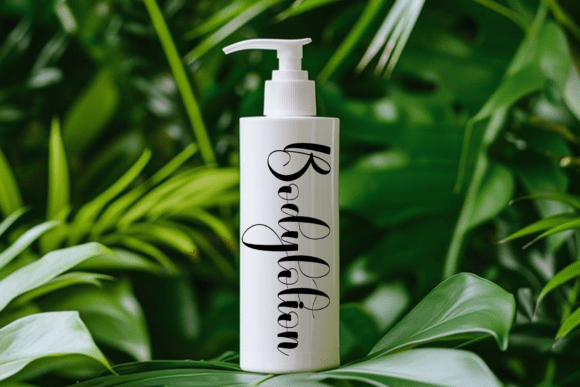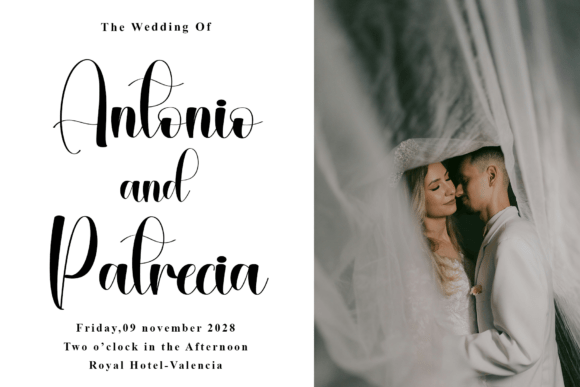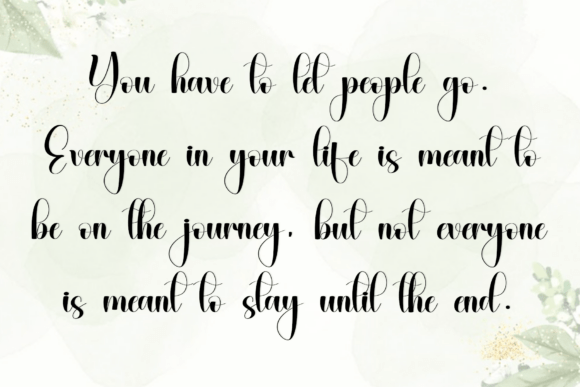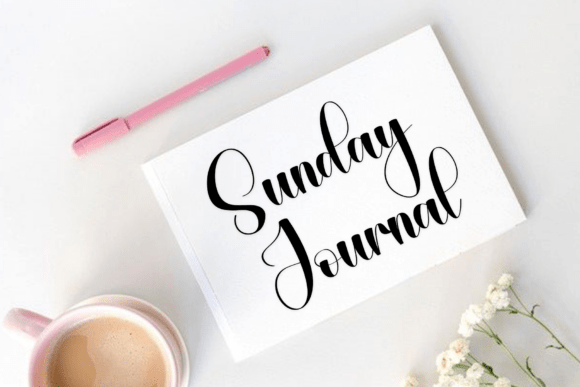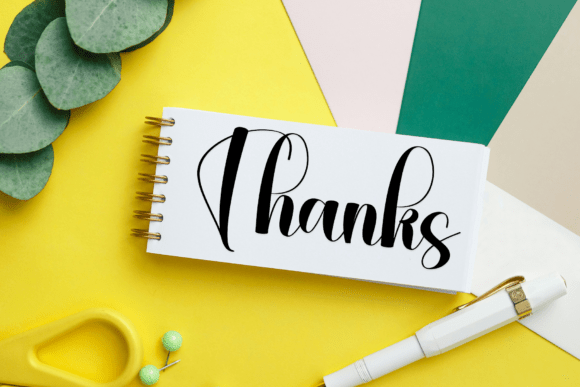
The Perfect Match for Your Creative Projects: Garlaning Font
Have you ever stared at a blank page, desperately trying to bring your creative vision to life? You know that moment when everything seems to be missing that special something, and you just can’t seem to put your finger on it? That’s when a great font can be the game-changer you need.
Enter the Garlaning Font, a sleek and modern font that adds a touch of elegance to any project. Designed to be versatile and adaptable, this font can easily be paired with a wide range of styles, from minimalist to bold. Whether you’re working on a logo, a brochure, or a website, the Garlaning Font is the perfect addition to take your designs to the next level.
As a designer, you know how important it is to have the right tools at your disposal. The Garlaning Font is a valuable asset to have in your toolkit, offering a level of sophistication and refinement that’s hard to find elsewhere.
Key Features of Garlaning Font
- Unique Characteristics: Garlaning Font features a unique blend of elegant and modern design elements, with subtle flair and refined lines.
- Font Weight: Garlaning Font offers a range of font weights, from Light to Bold, allowing designers to achieve the perfect balance of style and legibility.
Designer Review: Garlaning Font
As a designer, I’ve had the chance to work with various fonts, and I must say that Garlaning Font is a mixed bag. ✨ One thing that stands out is its unique and elegant design. The font’s subtle curves and refined lines make it perfect for use in luxury branding, fine dining, or high-end fashion projects.
The font also has a decent character set, including a wide range of punctuation and symbols. This is a major plus, especially when working on projects that require a lot of formatting. Additionally, the font’s spacing and kerning are well-executed, making it easy to read and set.
However, there are some limitations ⚠️ to consider. Firstly, the font’s weight range is somewhat limited, with only a few weights available. This can make it difficult to create a consistent visual hierarchy in your designs. Additionally, the font’s support for non-Latin scripts is virtually non-existent, which can be a problem for designers working on international projects.
- Unique and elegant design
- Decent character set, including punctuation and symbols
- Well-executed spacing and kerning
- Limited weight range
- Poor support for non-Latin scripts
Overall, I’d say that Garlaning Font is a solid choice for designers looking for a high-end, elegant font. However, its limitations should be carefully considered before committing to a project.
Getting the Most Out of Garlaning Font
For best results, use the Garlaning font in bold or italic styles to add emphasis and visual interest.
Pair the Garlaning font with a clean and simple sans-serif font for a professional and modern look.
The Garlaning font is ideal for:
- Infographics and data visualizations
- Editorial and publishing content
Alternatives to Garlaning Font for Designers
Playfair Display is an elegant, high-end serif font perfect for creating luxurious and sophisticated designs. It’s ideal for use in branding, advertising, and editorial content where a touch of sophistication is required.
Playfair Display is similar to Garlaning Font in its refined and luxurious feel, but it has a more classic and traditional look. While Garlaning Font is more versatile and suitable for modern designs, Playfair Display excels in creating a sense of opulence and grandeur.
Carolyna Pro is a modern, elegant script font that’s perfect for creating beautiful and sophisticated designs. It’s ideal for use in branding, invitations, and editorial content where a touch of elegance is required.